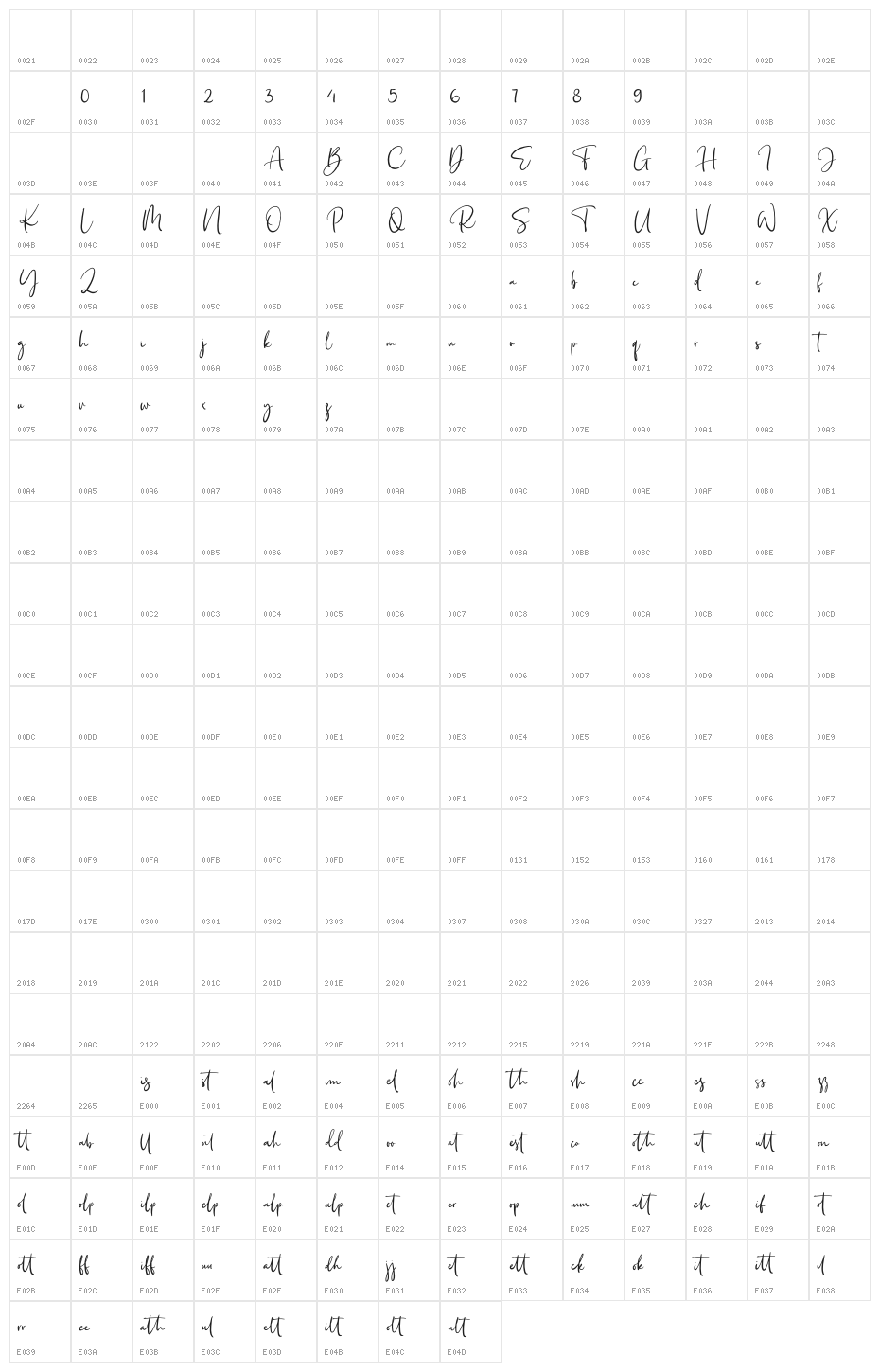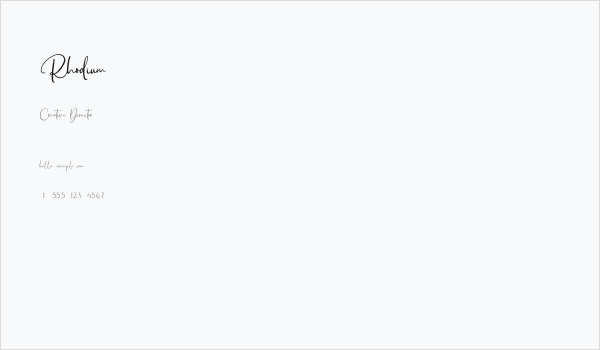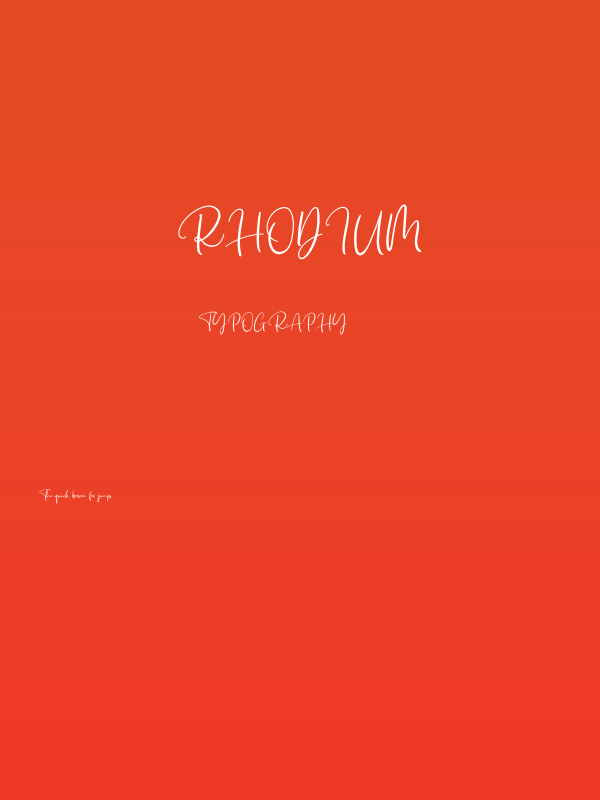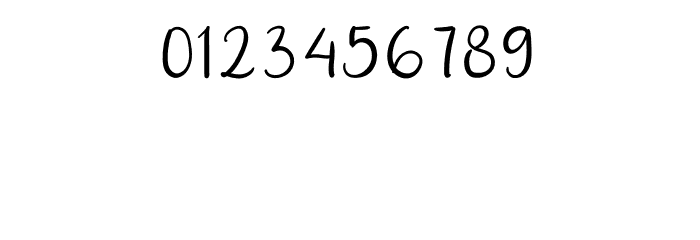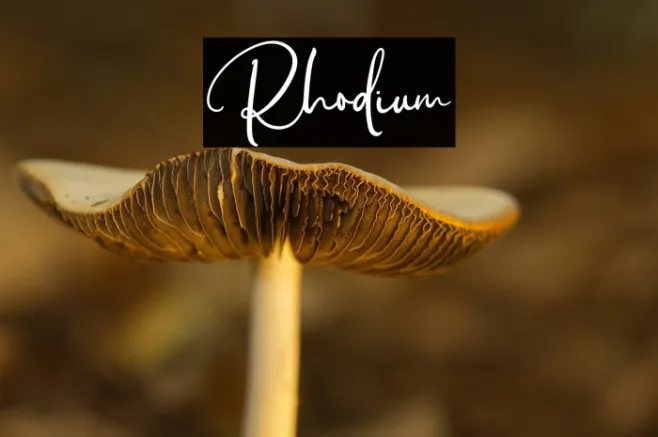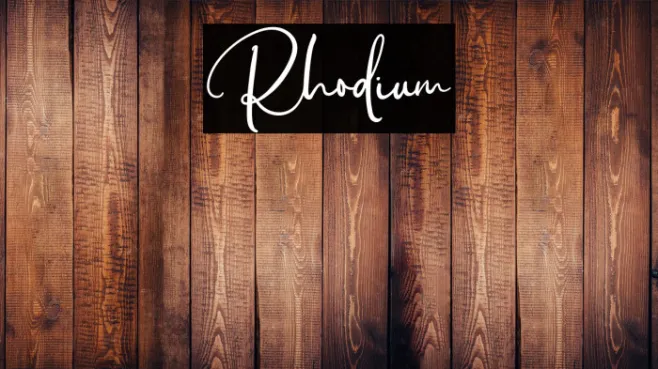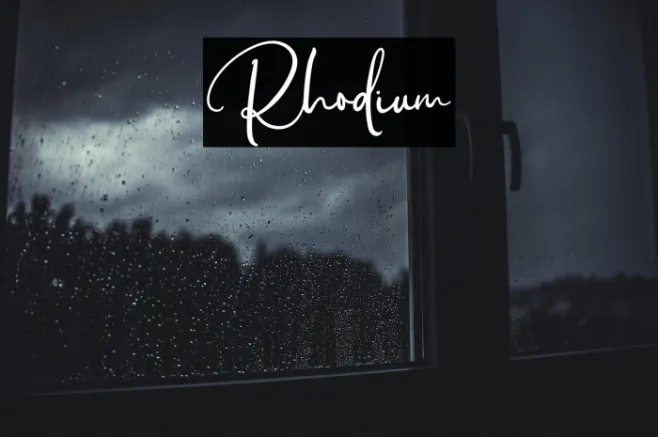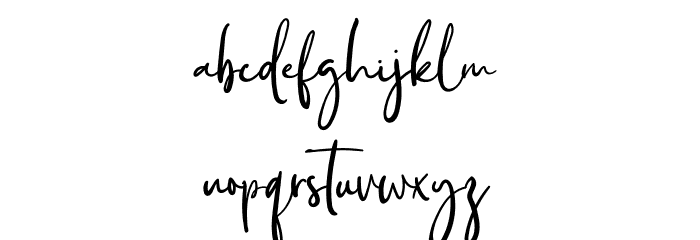
Rhodium Font
Rhodium Description
This elegant script font features a flowing, handwritten style with smooth, connected strokes. The uppercase letters are tall and graceful, with a slight slant that adds a sense of movement and fluidity. The lowercase letters maintain a consistent style, offering a harmonious blend of curves and loops. The numerals are clear and easy to read, complementing the overall aesthetic. Special characters are thoughtfully designed to match the font's sophisticated appearance, making it suitable for a variety of creative projects.
| Proposed Projects | Ideal for wedding invitations, greeting cards, branding, and elegant logo designs. |